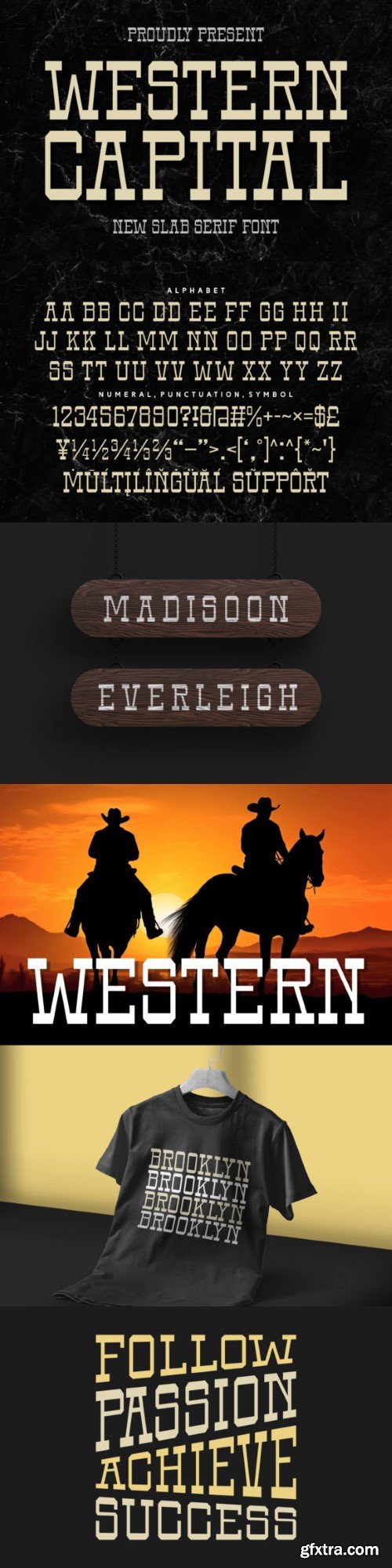
西部资本字体
Western Capital is a bold and assertive slab serif font. No matter the topic, this font will be anincredible asset to your fonts’ library, as it has the potential to elevate any creation.